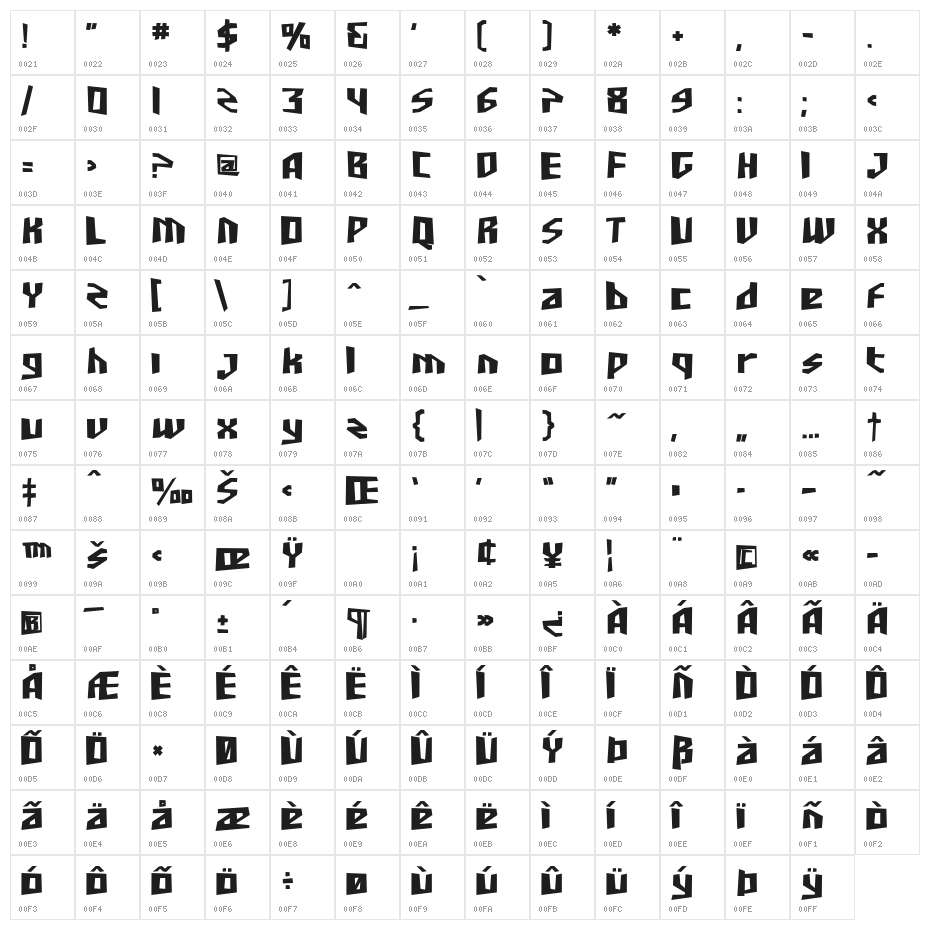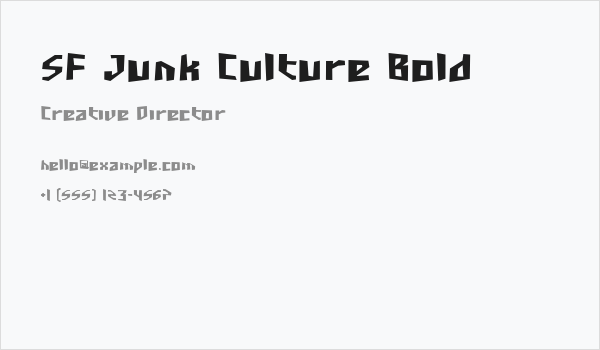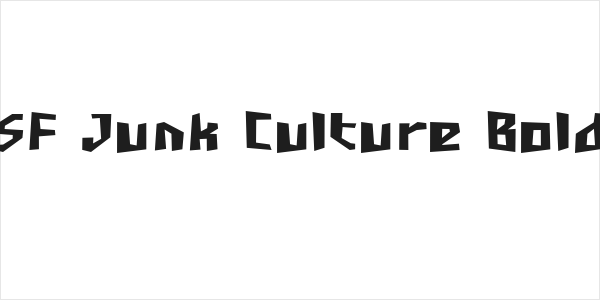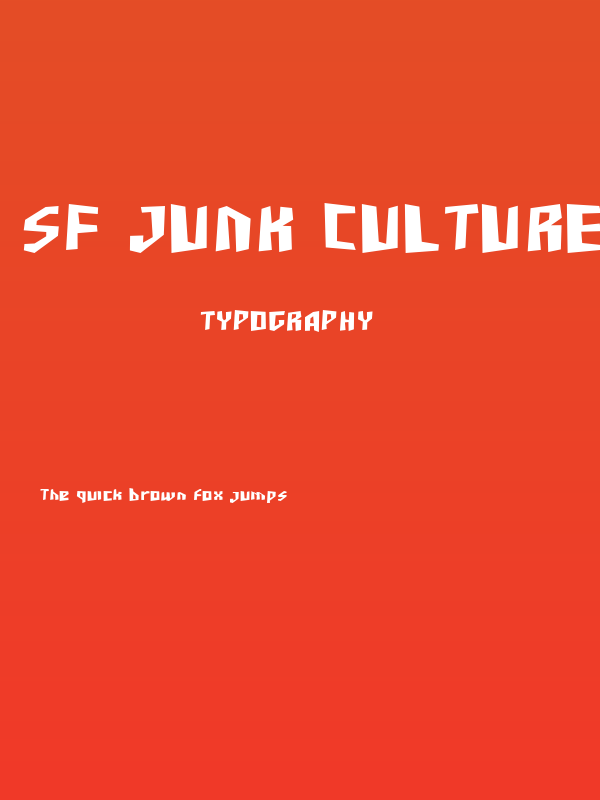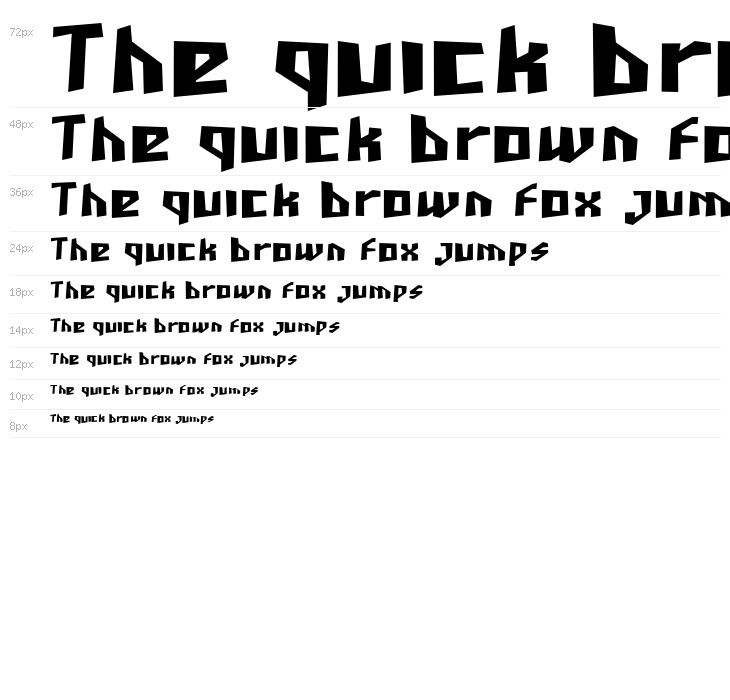
SF Junk Culture Bold Font
SF Junk Culture Bold Description
This font features a bold and dynamic style with sharp, angular edges and a slightly irregular form, giving it a distinct and edgy appearance. The characters are designed with a sense of movement and energy, making them stand out with their unique geometric shapes. The uppercase and lowercase letters maintain a consistent style, while the numerals and special characters complement the overall aesthetic. This font's boldness and distinctive design make it ideal for projects that require a strong visual impact.
| Overall Style | Modern, Edgy |
| Proposed Projects | Ideal for posters, album covers, video game graphics, and branding that requires a bold, edgy look. |